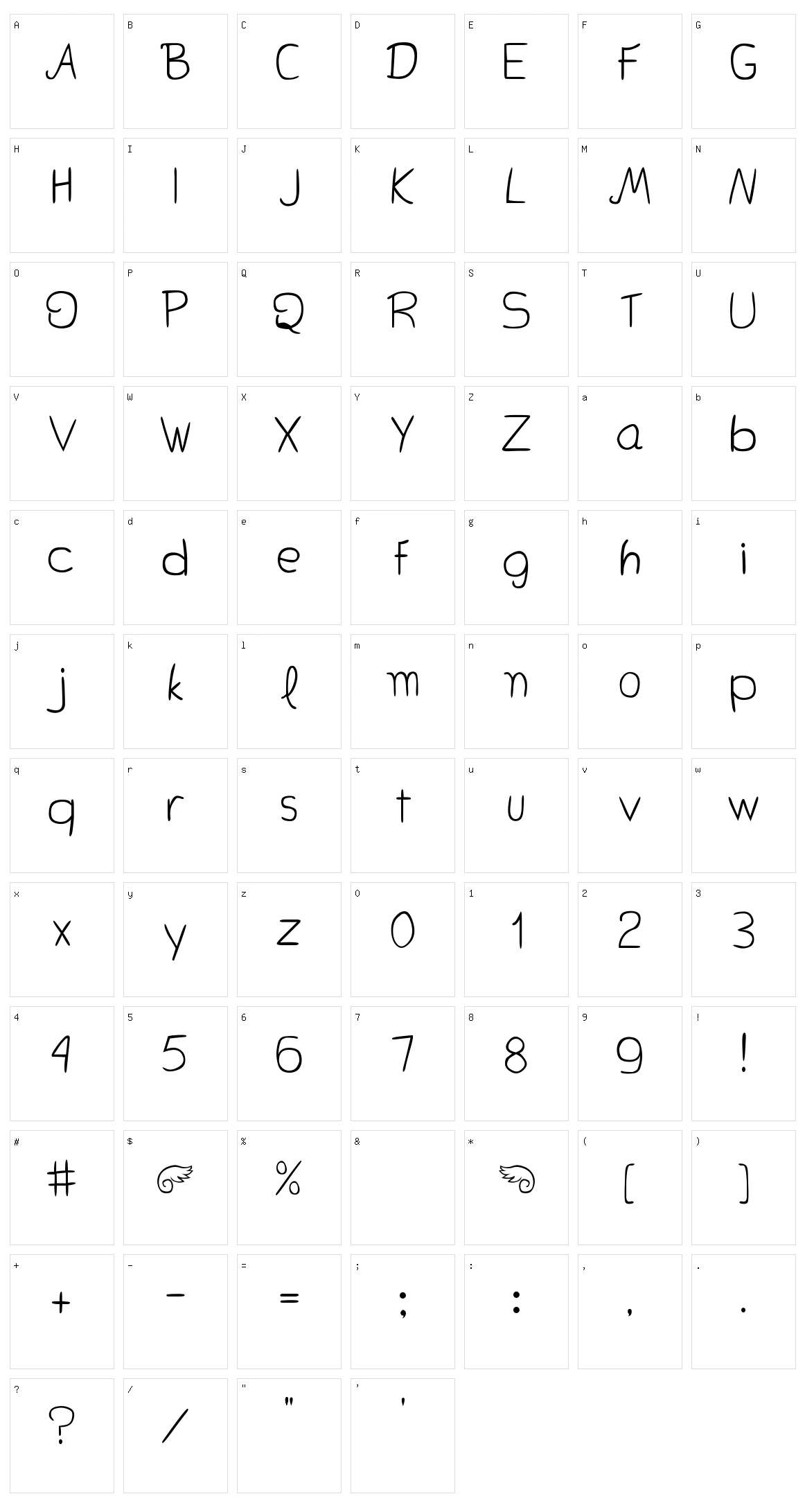
The free font Bella K. Don't Blink is carefully designed by Izabela de Lima, showcasing a thoughtful balance of creativity and usability and falls under the Script font style. When you download the ZIP file, it contains only 605.81 KB of font files, making it lightweight and quick to download. Please review the license details below to understand permitted usage and distribution rights. If license information is not available, we recommend using this font for personal projects only or contacting the author directly for commercial usage permissions.